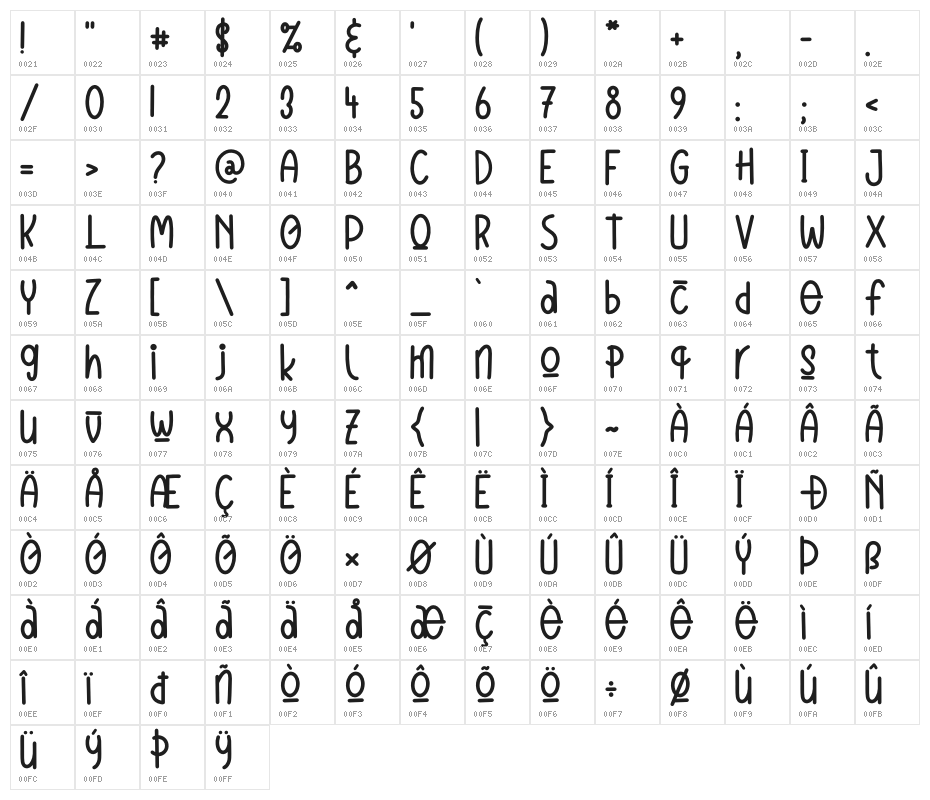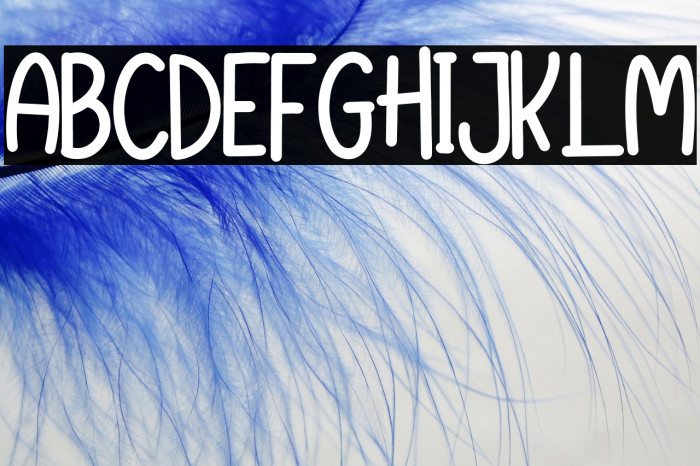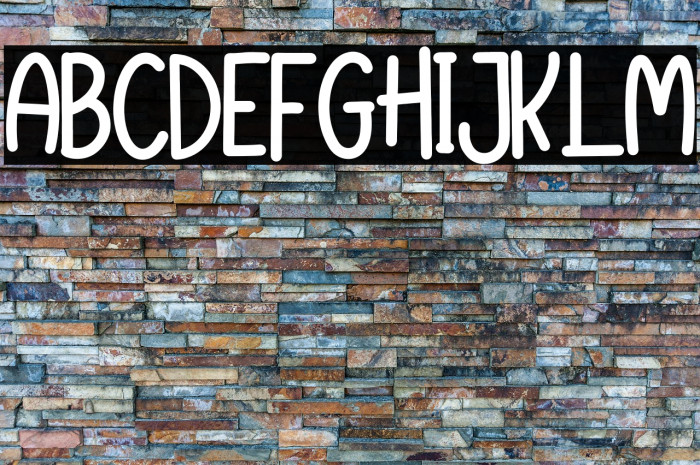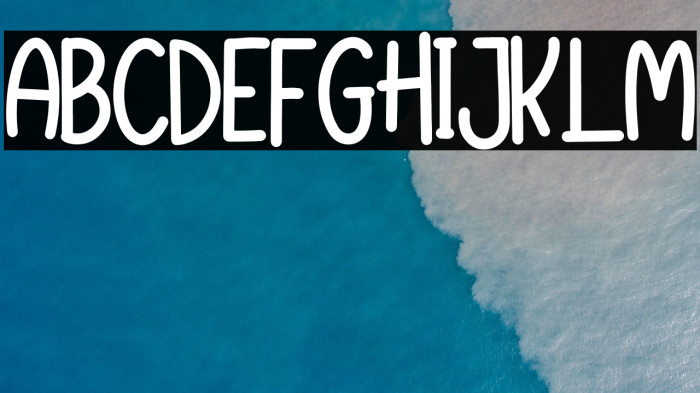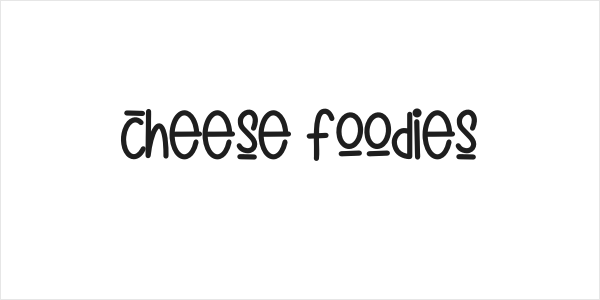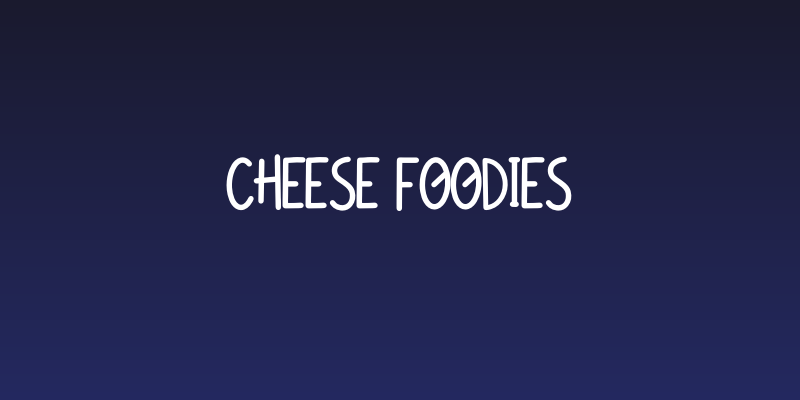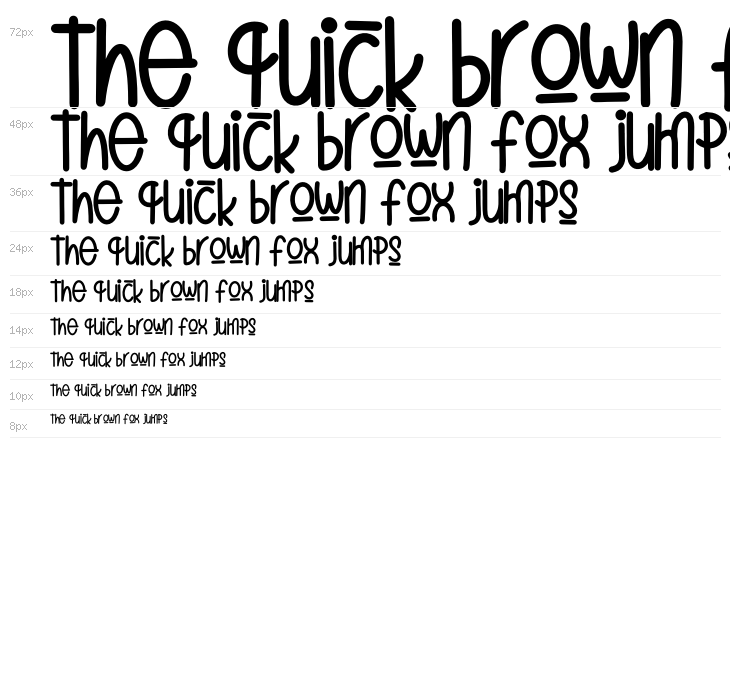
cheese foodies Font
cheese foodies Description
This playful and whimsical font features rounded, bold characters with a hand-drawn aesthetic. The letters are tall and narrow, giving them a distinctive, elongated appearance. The uppercase and lowercase letters maintain a consistent style, with smooth curves and a friendly, approachable feel. The numbers and special characters complement the alphabet with the same rounded and informal design. This font exudes a sense of fun and creativity, making it ideal for projects that require a lighthearted and engaging touch.
| Proposed Projects | Ideal for children's books, playful branding, greeting cards, and creative posters. |